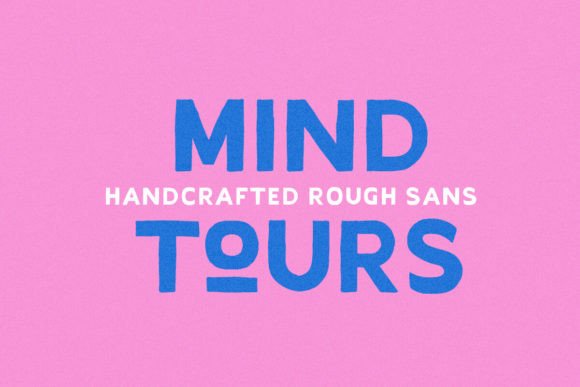
Introducing Mind Tours Font: A Handcrafted Sans with a Personal Touch
In the world of typography, fonts play a crucial role in conveying the tone and personality of a brand or message. For those looking for a unique and handmade look, the Mind Tours Font is an excellent choice. This article will explore the features and benefits of Mind Tours, a handcrafted sans font with an organic, rough, and personal touch.
What is Mind Tours Font?
Mind Tours Font is a carefully crafted sans-serif font that boasts an organic and rough texture, giving it a personal and handmade feel. This font is perfect for a variety of projects, including logotypes, quotes, and any other creative endeavors that require a distinctive and human touch.
Key Features of Mind Tours Font
- Handcrafted with love: Each letterform has been meticulously designed to give the font a unique, handmade look.
- Organic and rough texture: The font features an organic texture that adds a layer of personality to any project.
- Multi-language support: Mind Tours Font supports multiple languages, making it a versatile choice for global projects.
- Uppercase and lowercase options: The font includes both uppercase and lowercase letters, allowing for flexible typography.
Uses of Mind Tours Font
The versatility of Mind Tours Font makes it suitable for a wide range of applications. Here are some ideas to get you started:
- Logotypes and branding: Create a unique and memorable brand identity with Mind Tours Font.
- Quotes and typography: Add a personal touch to inspirational quotes, posters, and social media graphics.
- Packaging and labels: Use Mind Tours Font to create eye-catching packaging and labels that stand out.
- Digital and print media: The font is suitable for both digital and print projects, including magazines, brochures, and websites.
Benefits of Using Mind Tours Font
So, why choose Mind Tours Font for your next project? Here are some benefits to consider:
- Unique and distinctive: Mind Tours Font offers a one-of-a-kind look that will set your project apart.
- Easy to read: Despite its organic texture, the font remains highly legible, making it perfect for body text and headlines.
- Flexible and versatile: Use Mind Tours Font for a wide range of projects, from digital to print.
- Supports multi-language: Reach a global audience with a font that supports multiple languages.
Tips for Using Mind Tours Font
To get the most out of Mind Tours Font, here are some tips to keep in mind:
- Experiment with combinations: Mix and match uppercase and lowercase letters to create visually interesting typography.
- Play with colors and textures: Add depth and personality to your project by experimenting with different colors and textures.
- Use it sparingly: Mind Tours Font is best used as an accent font to add emphasis and personality to your project.
In conclusion, Mind Tours Font is a unique and versatile handcrafted sans font that offers a personal and handmade touch to any project. With its organic texture, multi-language support, and flexible typography, it’s perfect for a wide range of applications. Whether you’re looking to create a distinctive brand identity, add personality to your typography, or simply want to try something new, Mind Tours Font is an excellent choice.